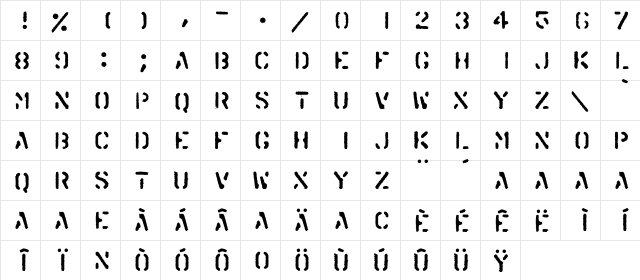
Karton Regular
Design Context for Karton Typeface
Karton takes a measured approach to typography — its balanced proportions and neutral character make it a reliable workhorse for both digital and print work.